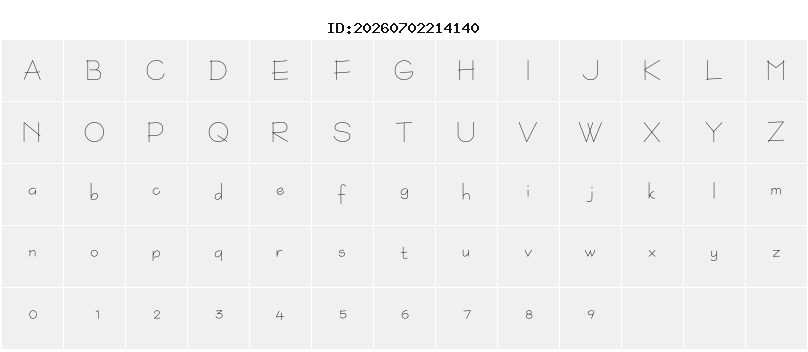
• Font Name: A013-Sounso Moon
• Manufacturer: 上首造字
A013-Sounso Moon.ttf is a modern, elegant sans-serif font designed for ultimate readability and visual harmony. Perfect for branding, headlines, web design, and print materials.